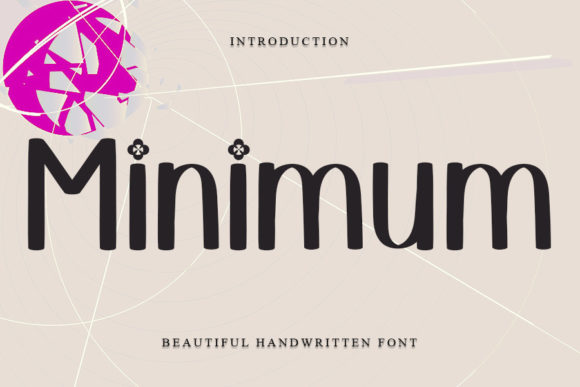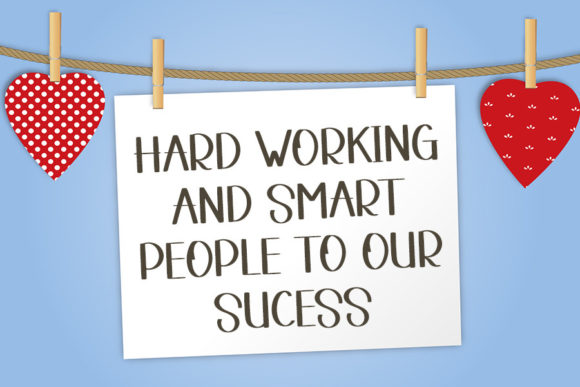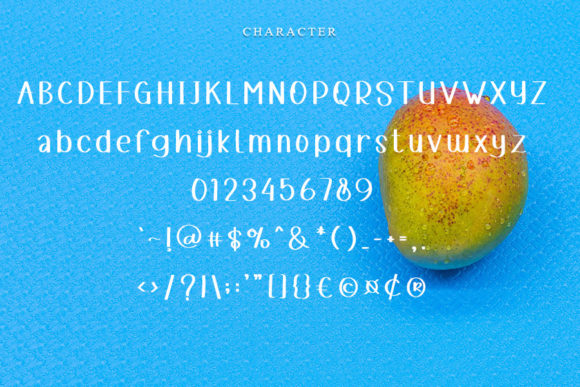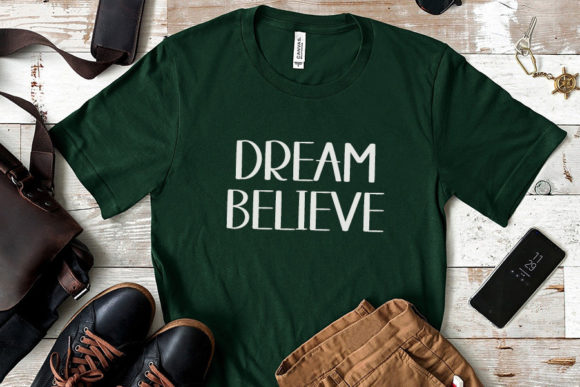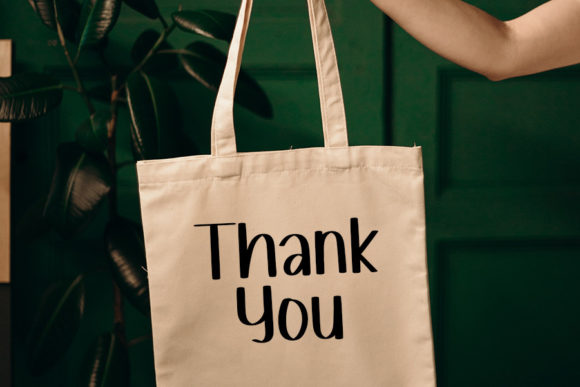
Minimum Font
About Minimum Font
Minimum is a cool and friendly handwritten font, that features a relaxed and sweet style. It is defined by smooth curves and is perfect for fashion branding or editorial designs.